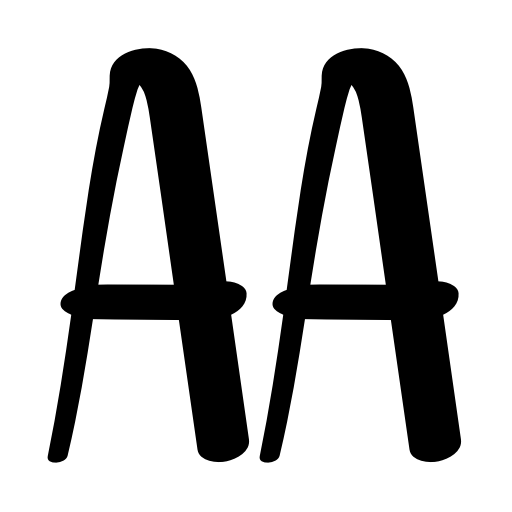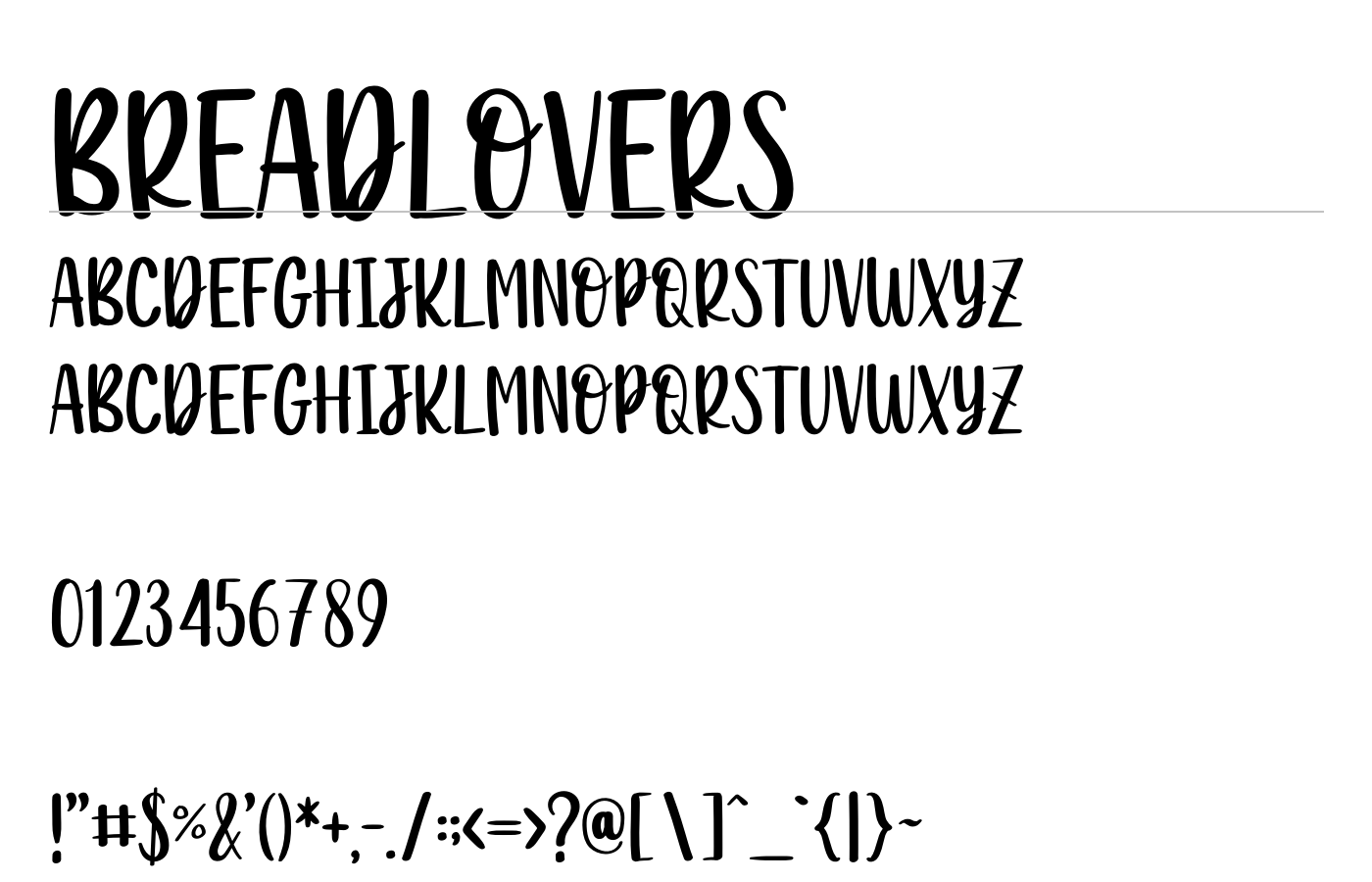
Breadlovers is a playful, hand-drawn sans serif font with a tall, narrow structure and casual, friendly charm. Its uneven stroke widths and quirky letterforms give it an organic, approachable feel, making it perfect for creative projects, informal branding, and fun headlines that need personality and warmth. This font works especially well in designs that benefit from a personal, handmade touch without sacrificing legibility.
Breadlovers Font
About Breadlovers Font
| Font family | Breadlovers Font |
| Designer | Mukhlis Muhammad |